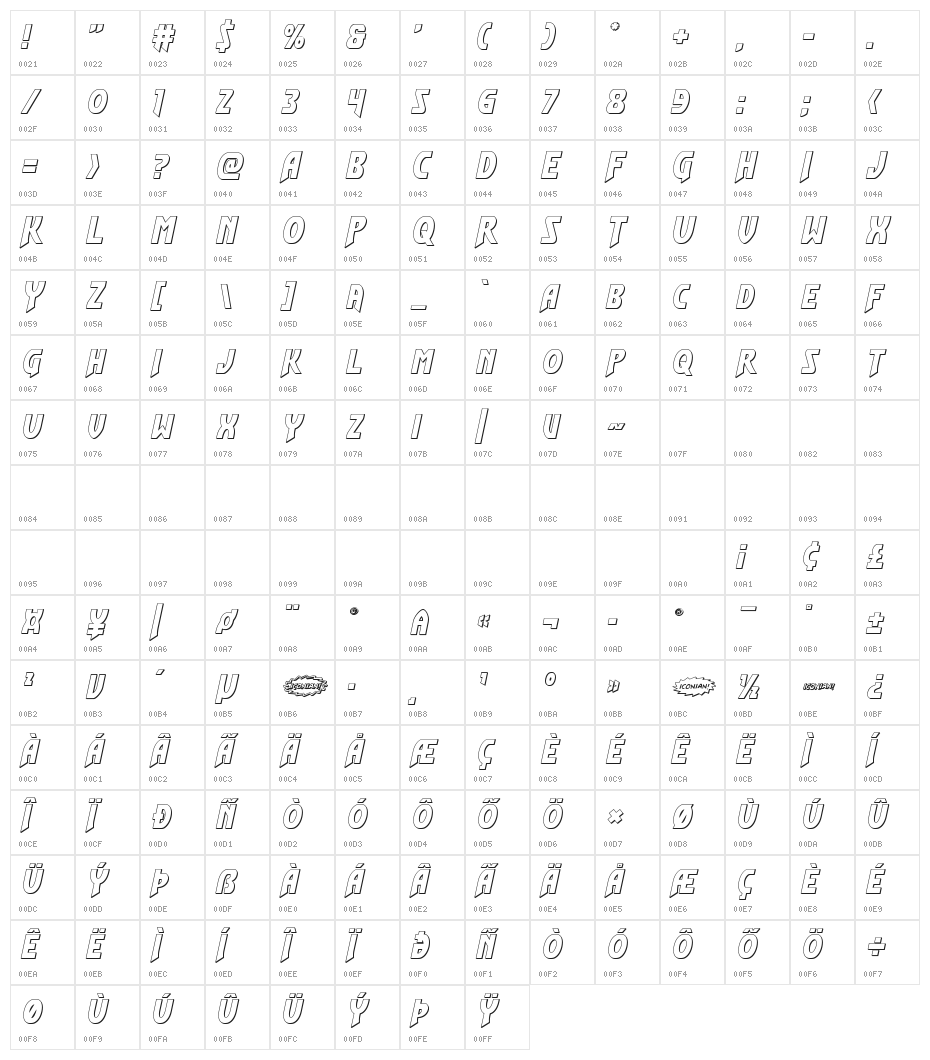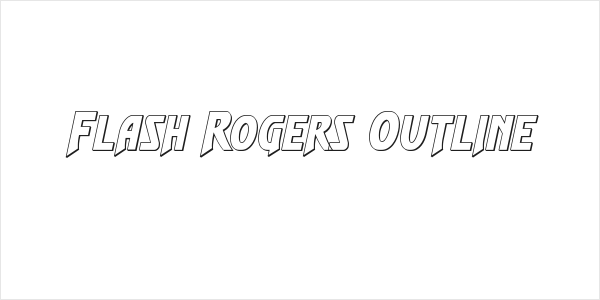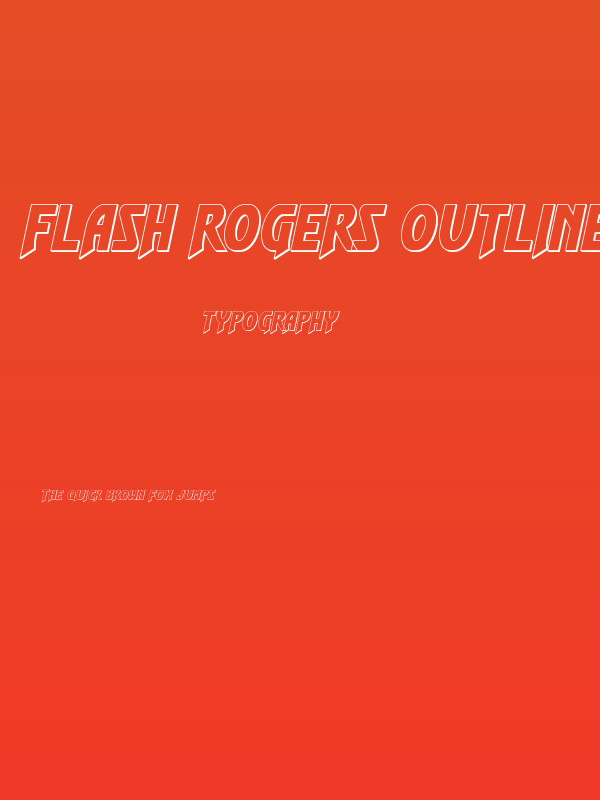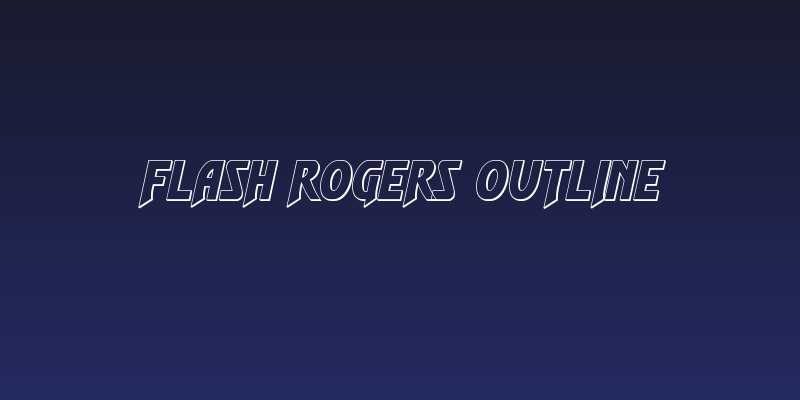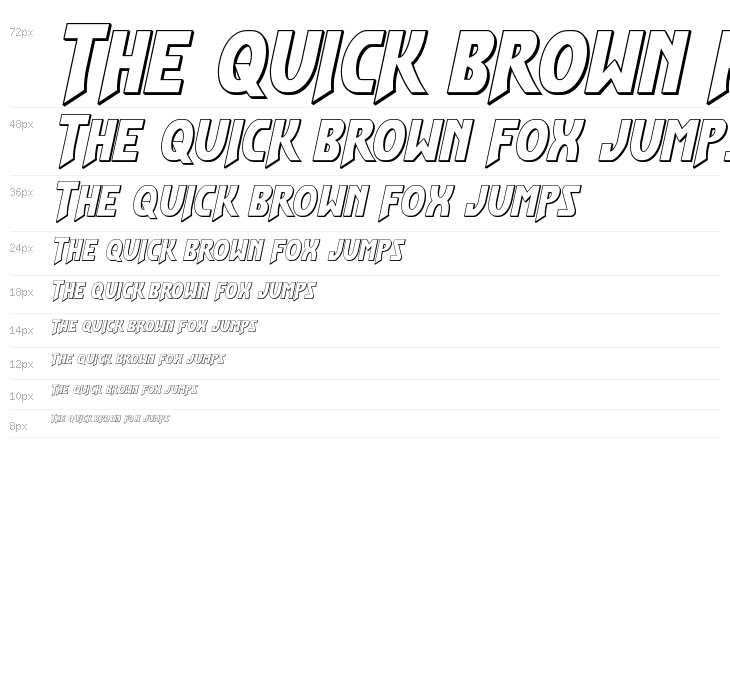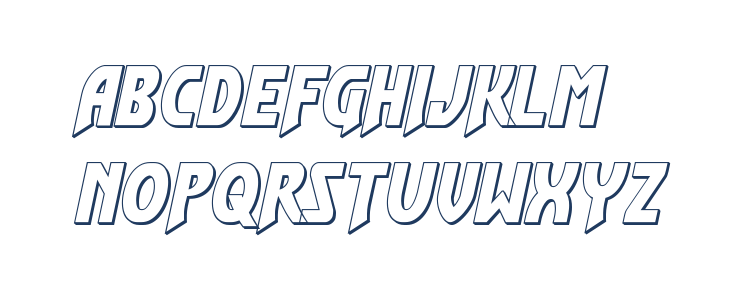
Flash Rogers Outline Font
Flash Rogers Outline Description
This font features a bold, dynamic outline style that gives each character a sense of movement and energy. The angular, geometric shapes are reminiscent of comic book lettering, with sharp edges and a slightly italicized slant that adds to its dynamic appearance. The uppercase and lowercase letters maintain a consistent style, with the numbers and special characters following suit. The outline design creates a striking visual effect, making it ideal for attention-grabbing headlines or titles. The font's unique style is both modern and playful, suitable for projects that require a bold and energetic aesthetic.
| Overall Style | Modern, Playful |
| Proposed Projects | Ideal for comic book covers, video game titles, posters, and branding that requires a bold, energetic look. |